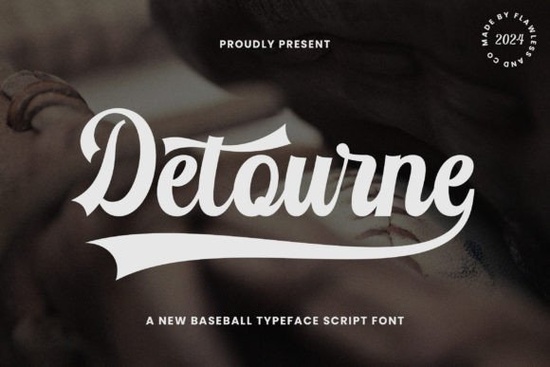
If you've ever tried to design a sports logo or team jersey and struggled to find a typeface that actually feels like baseball, you're not alone. The Detourne Font is a retro script typeface built specifically for that purpose it captures the old-school charm of vintage baseball lettering in a way that works across modern design projects.
Whether you're creating team uniforms, branding for a local league, or print-on-demand merchandise, Detourne gives you that classic sports script look without needing hand-lettering skills. Let's break down what makes it worth a closer look.
What Does the Detourne Font Actually Look Like?
Detourne is a flowing script font with a distinctly retro sports personality. Its letterforms have a natural, connected flow that mimics the cursive script you'd see on vintage baseball jerseys and stadium signage from the mid-20th century. The strokes carry a confident weight not too thin, not too bold which keeps text readable at both large and small sizes.
The font includes uppercase and lowercase letters with stylistic consistency, so you can mix and match without the design looking off. It's the kind of typeface that immediately signals classic American sports the moment someone sees it.
Who Is This Font Best For?
Detourne works well for a range of creative projects. Here are some common uses:
- Sports team branding logos, mascots, and letterhead for baseball, softball, or any athletic team
- Jersey design names, numbers, and team names on uniforms
- Print-on-demand products t-shirts, mugs, stickers, and posters with a sports or retro theme
- Event promotions tournament flyers, banners, and social media graphics
- Small business branding sports bars, athletic training facilities, and vintage-style shops
If you sell on platforms like Etsy, Redbubble, or Merch by Amazon, a font like this opens up an entire product category. Sports-themed designs stay popular year-round, with a noticeable spike during baseball season.
How Does Detourne Compare to Other Script Fonts?
There are plenty of script fonts out there, but not all of them fit a sports context. Detourne is styled specifically after baseball aesthetics, which gives it an edge for athletic projects. That said, pairing it with complementary fonts can make your designs stronger.
How Do You Use a Sports Script Font Effectively?
Getting the most out of a font like Detourne comes down to a few practical details:
- Size it right. Script fonts look best with room to breathe. Avoid setting them too small, or the connecting strokes can blur together.
- Pair with a simple sans-serif. A clean, bold sans-serif for secondary text balances the decorative script and keeps layouts readable.
- Use color intentionally. Classic baseball palettes navy, red, cream, and gold complement this style naturally.
- Test on mockups first. Before uploading to a POD platform, preview the font on product mockups to see how it reads on fabric or physical items.
Is Detourne Worth Adding to Your Font Library?
If you regularly design sports-related content whether for clients, your own shop, or a local team Detourne fills a specific gap that generic script fonts don't. Its retro baseball styling gives your work an authentic look that's hard to replicate with more common typefaces.
It's not trying to be everything. It does one thing well: vintage sports lettering. And for many designers, that kind of focused, reliable tool earns its spot in a font library quickly.